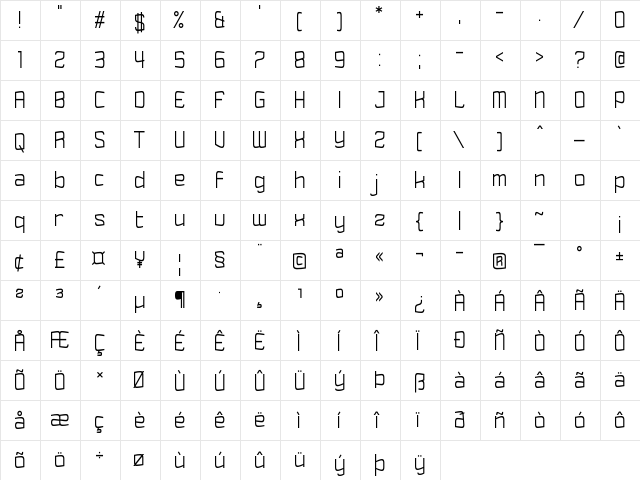
Tincture Regular
| Designer | NAL |
Design Context for Tincture Typeface
Tincture takes a measured approach to typography — its balanced proportions and neutral character make it a reliable workhorse for both digital and print work.